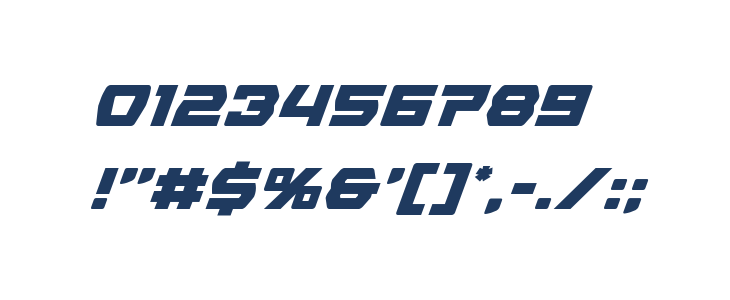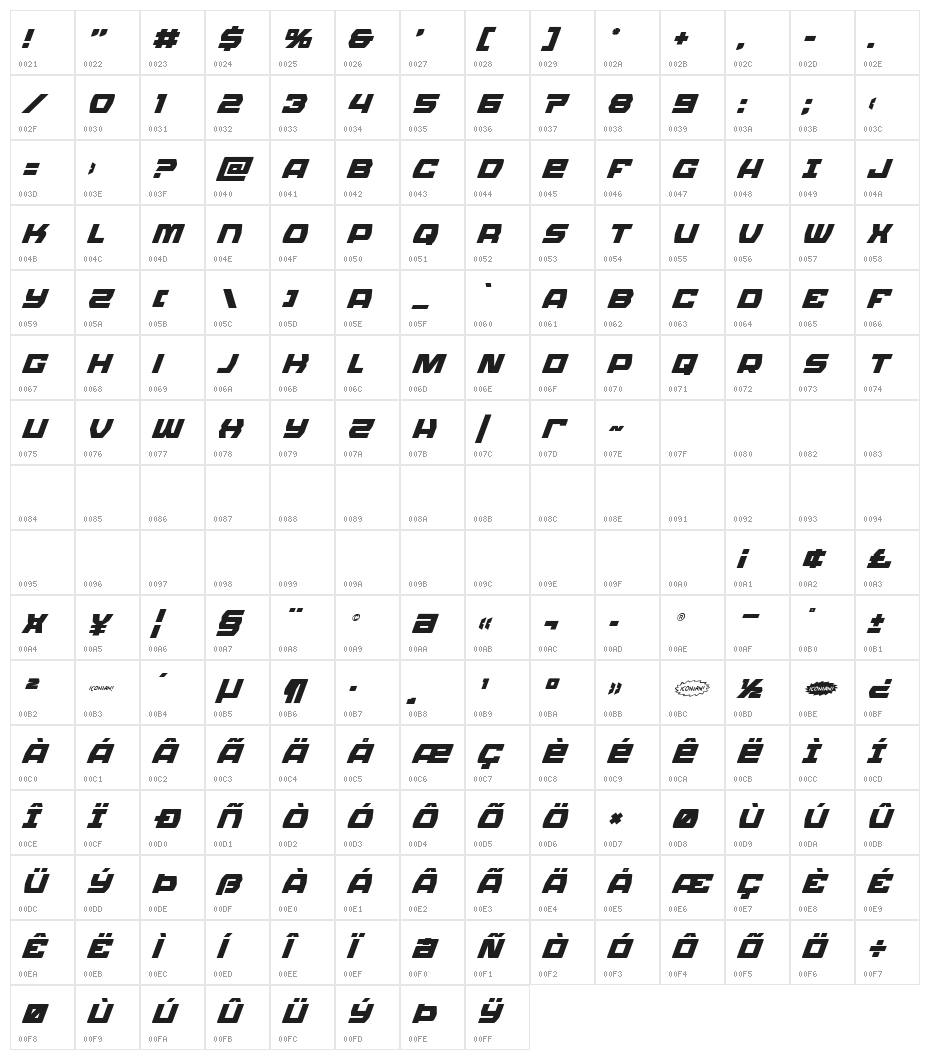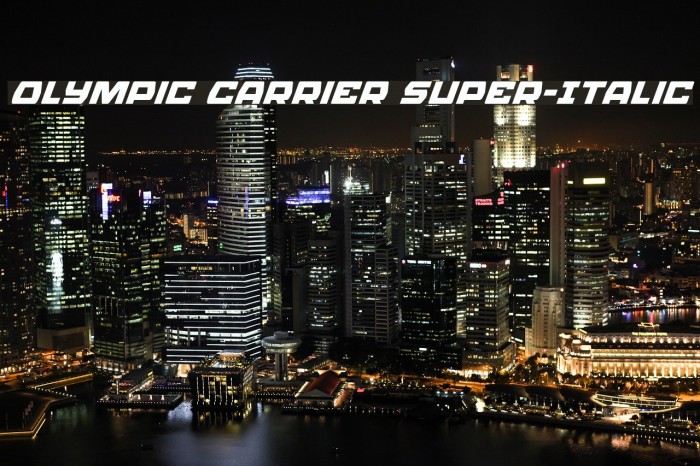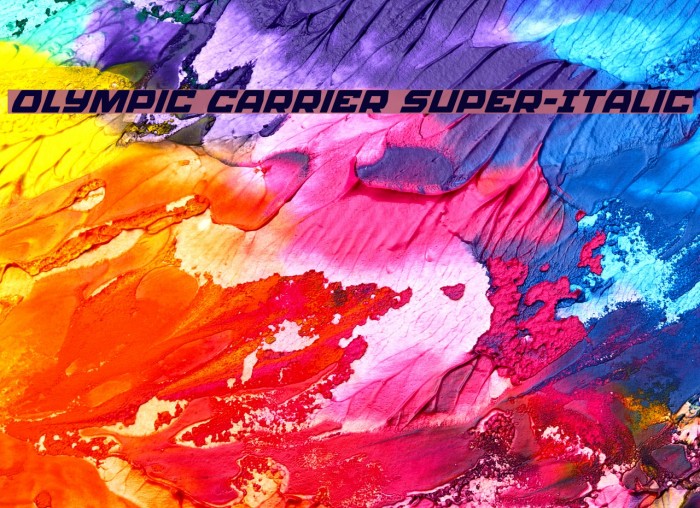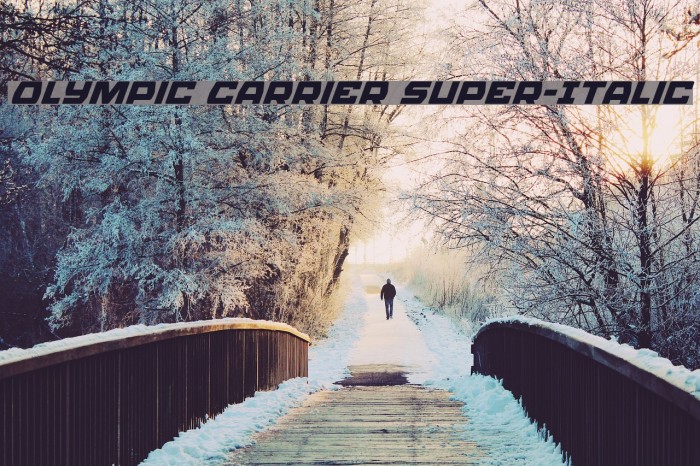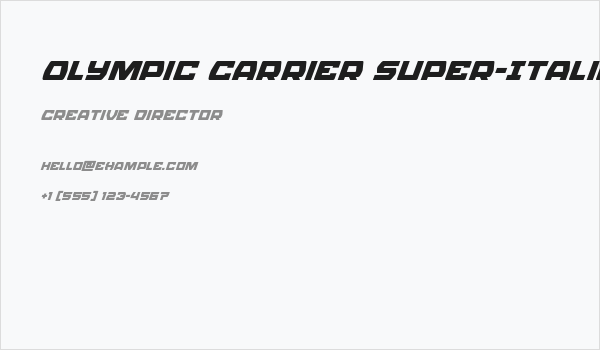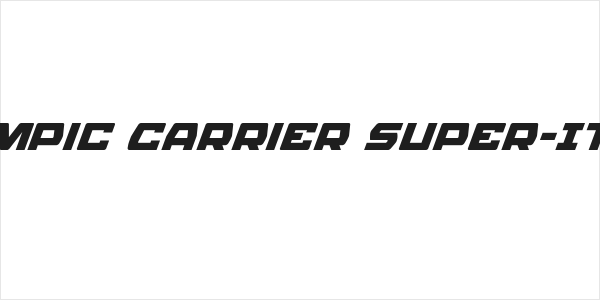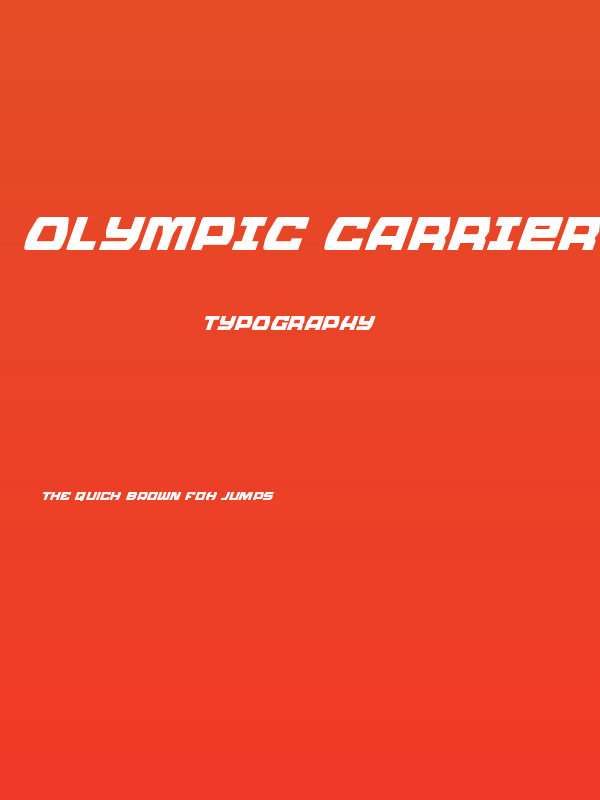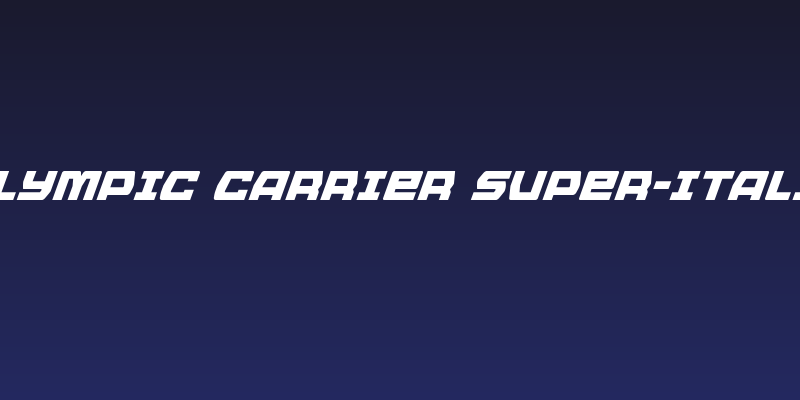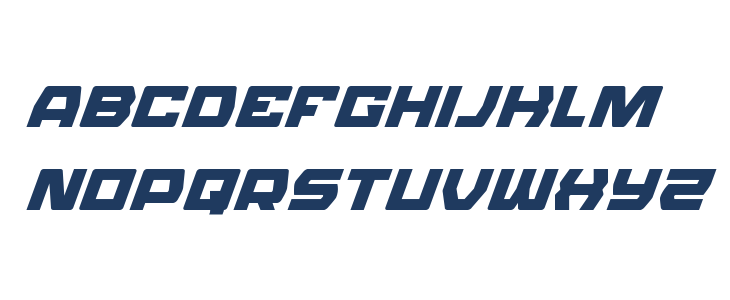
Olympic Carrier Super-Italic Font
Olympic Carrier Super-Italic Description
This font features a bold and dynamic style with a strong italic slant, giving it a sense of motion and energy. The characters are wide and robust, with sharp angles and a geometric structure that adds a modern and futuristic feel. The uppercase and lowercase letters maintain a consistent design, ensuring readability while still being visually striking. The numbers and special characters are equally bold, complementing the overall aesthetic. This font is ideal for projects that require a bold statement and a contemporary look.
| Proposed Projects | Ideal for sports branding, dynamic posters, futuristic designs, and bold headlines. |